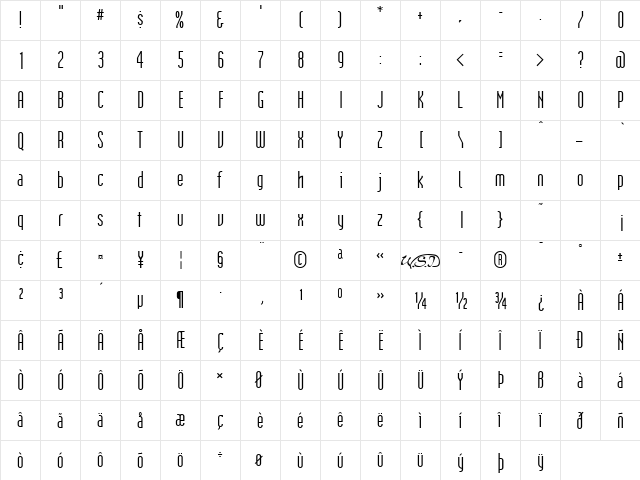
Institution Regular
Design Context for Institution Typeface
Institution offers clean, dependable letterforms without strong stylistic allegiance, making it a practical choice for designers who need flexibility.
Pro Tip: Pair Institution with a font of contrasting weight or personality to build a more expressive typographic hierarchy.